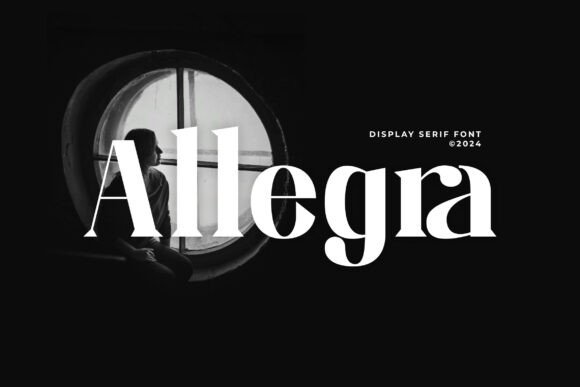
The Allegra Font: A Sophisticated Display Serif for Modern Design
I’ll never forget the design project that led me to discover the Allegra font. I was working on a luxury brand’s editorial piece, and my client requested a font that exuded elegance and sophistication. After hours of scouring font libraries, I stumbled upon Allegra – a stunning display serif that instantly captured the essence of high-end design.
• ✨ The bold, high-contrast letters make a powerful visual impact, perfect for headlines and logos.
• 💫 The elegant design makes it ideal for editorial design, fashion brands, and high-end publications.
While Allegra is an exceptional font, there are a few things to keep in mind: ⚠️ It may not be the best choice for body text due to its bold nature and high contrast. Also, some users have noted that the font can be a bit finicky when it comes to kerning.
Allegra’s design story begins with the pursuit of elegance and sophistication. Inspired by classic serif fonts, the designer aimed to create a modern, bold, and luxurious typeface. The result is a font that effortlessly balances refinement with high-impact visuals.
Is Allegra suitable for body text? While Allegra is an elegant font, its bold nature makes it more suitable for headlines and titles. For body text, consider a complementary font with better readability.